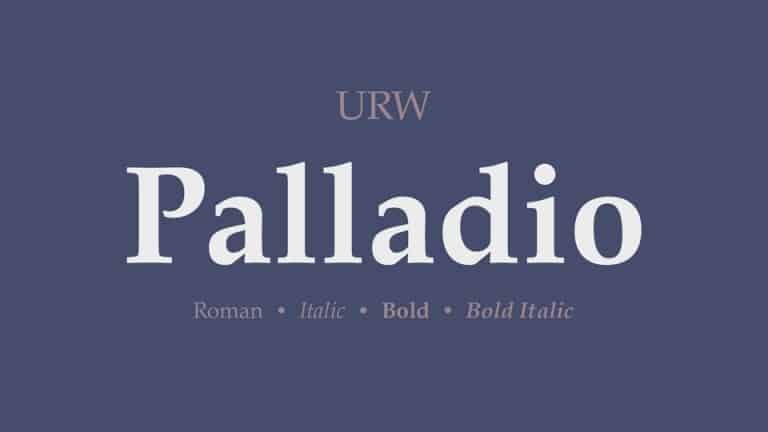
Palladio Serif Font
Palladio Serif Font offers a wide variety of styles to help you discover the best mood for your projects, from body text to large titles, from classic styles to modern and bold styles. Palladio is a basic typeface from the designer URW Type Foundry.
It’s an elegant old style serif font family based on the Palatino design by Hermann Zapf, initially released in 1949 by the Stempel foundry. Palladio type family comes in Regular and Bold weights, including corresponding Italics, supports Latin, Cyrillic and Greek languages.